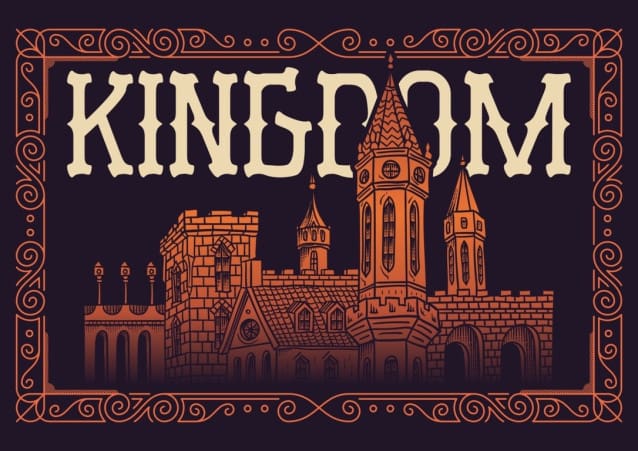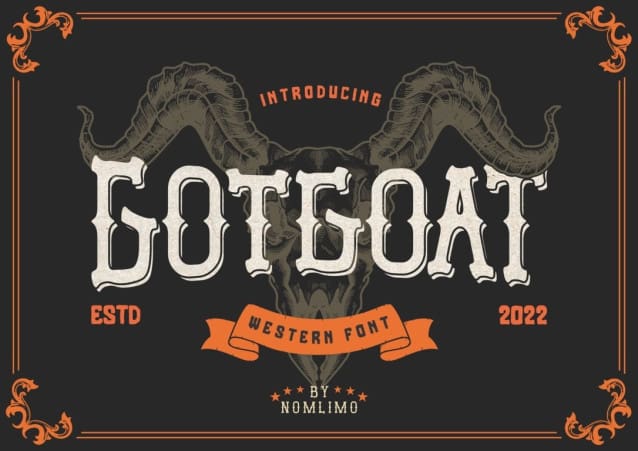
GotGoat Font
GotGoat Font, a bold and Vintage typeface that effortlessly merges contemporary and vintage aesthetics, radiating an irresistible charm. With its sleek sans serif design, this font exudes style, elegance, and sophistication, making it a versatile choice for a wide range of projects. Whether you’re working on branding, logo design, wedding invitations, social media posts, advertisements, product packaging, labels, photography, watermarks, invitations, or stationery, GotGoat Font is your ultimate companion.